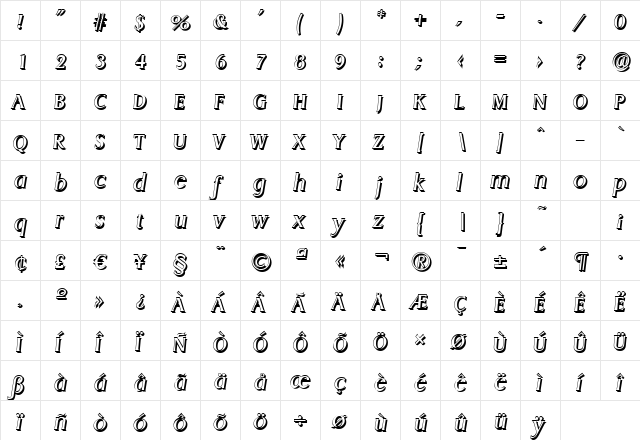
AaronBeckerShadow Italic
Design Context for AaronBeckerShadow Typeface
AaronBeckerShadow brings ornamental detail and strong personality to headlines and identities, where visual impact matters more than quiet functionality. The dynamic lean of this cut emphasises speed and emphasis in any layout.
Font Pairing: Pair with a clean neutral sans-serif for body copy to let AaronBeckerShadow's character lead without overwhelming the composition.
Pro Tip: Use AaronBeckerShadow exclusively at display sizes — it was designed to be seen, not read at length. Let a neutral companion handle body copy.